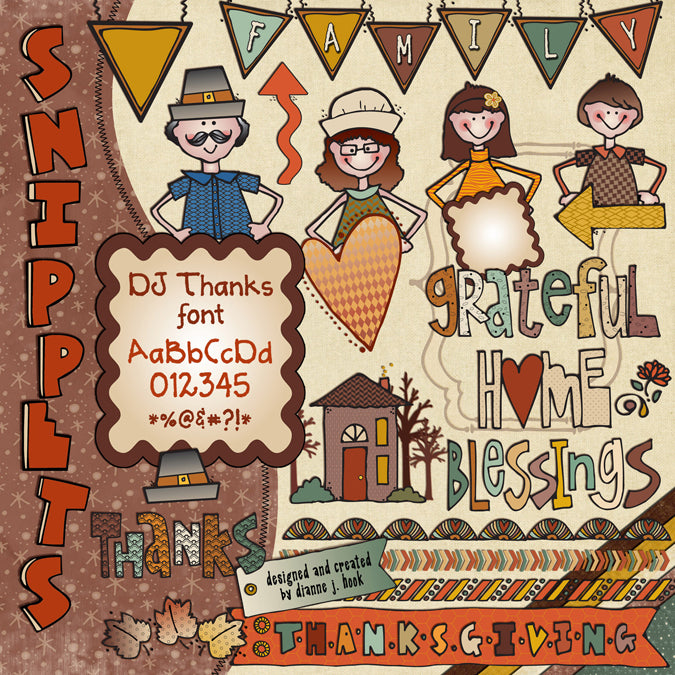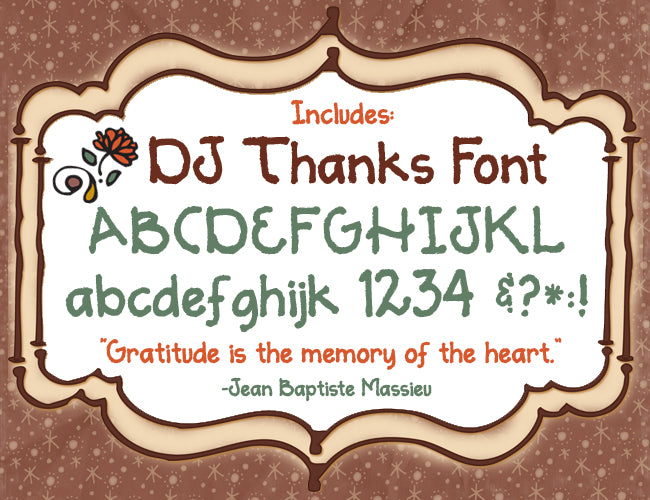
Fall Family Clip Art Snippets, Font and Printables Kit
You'll give thanks for the simple, cute creating tools included in
our Snippets Fall Family collection!
It comes with everything you need
to create a smile for Thanksgiving and fall family gatherings.
Set includes:
- Our charming DJ Thanks font
It's ALL completely coordinated, & super-easy to use...
so you can get right to the fun part. Perfect for Thanksgiving, family
notes & memory books, thank you gifts, greeting cards and more.